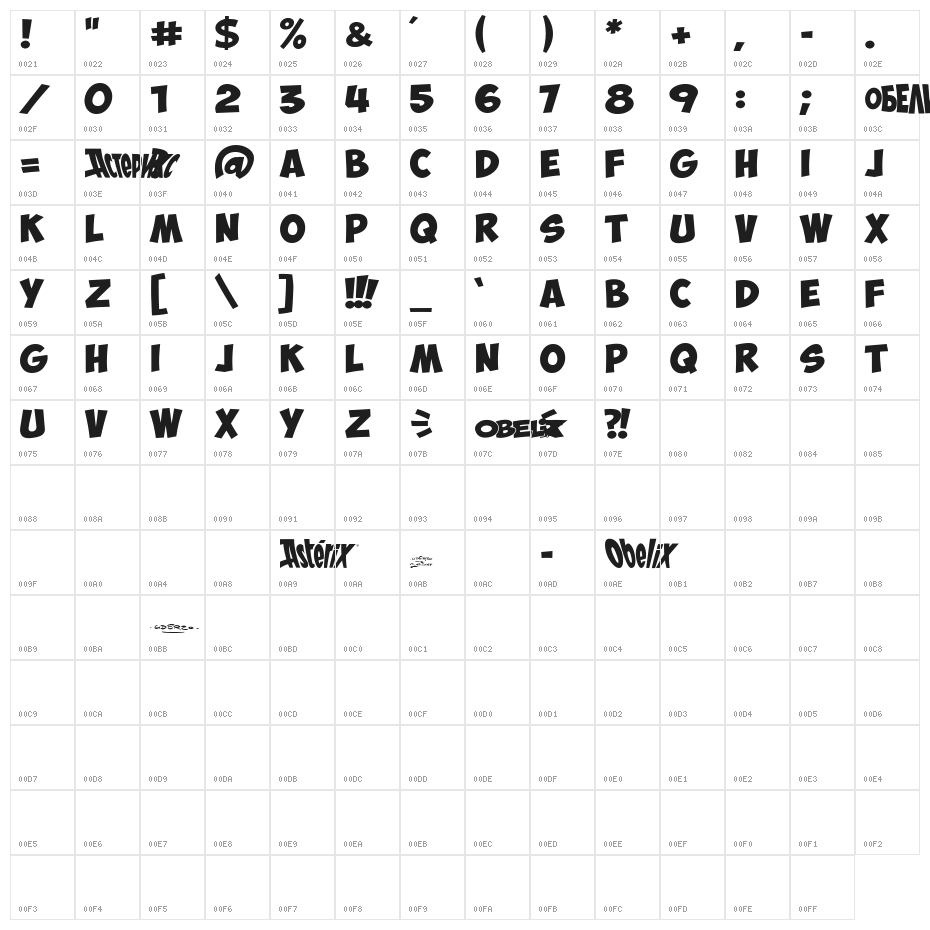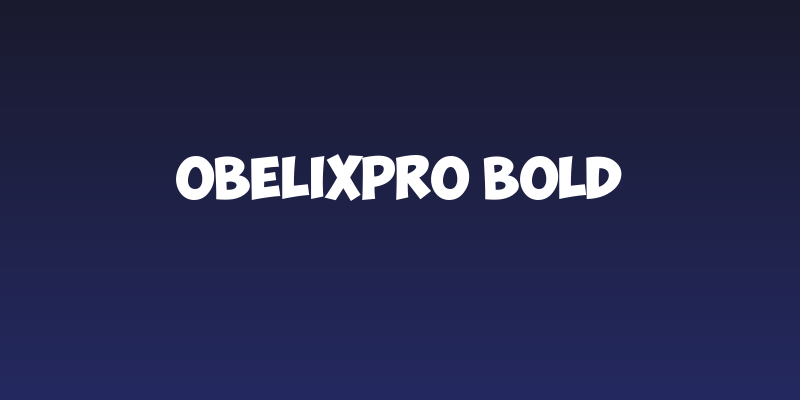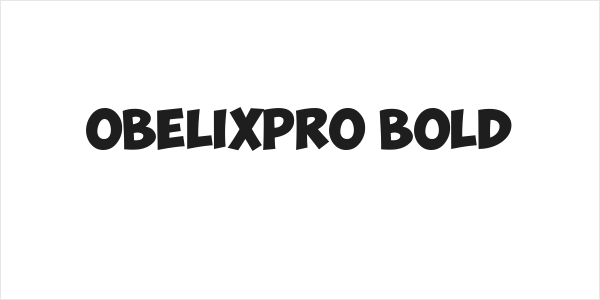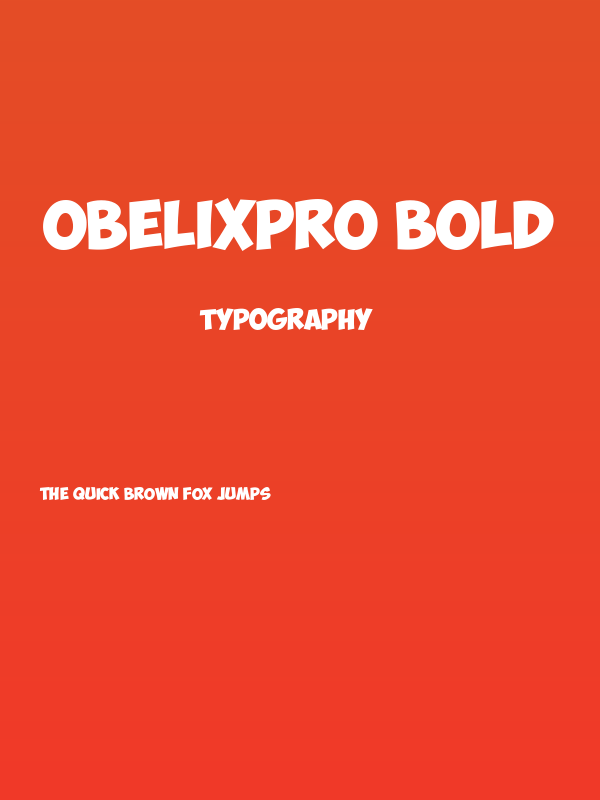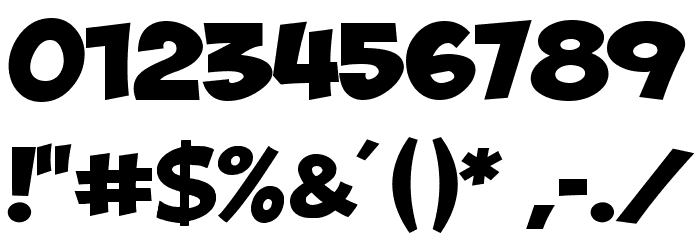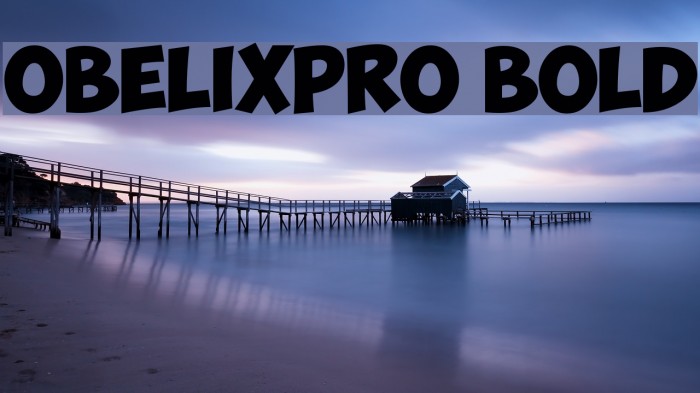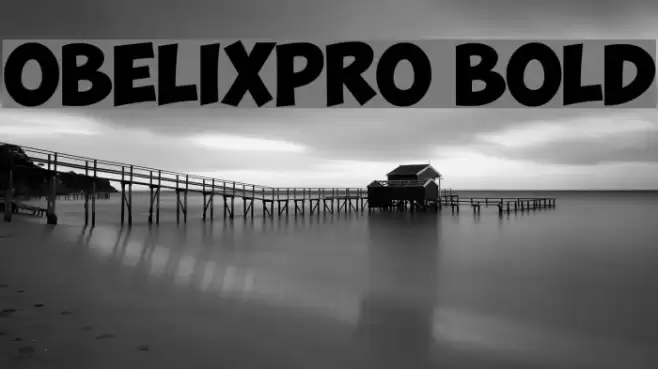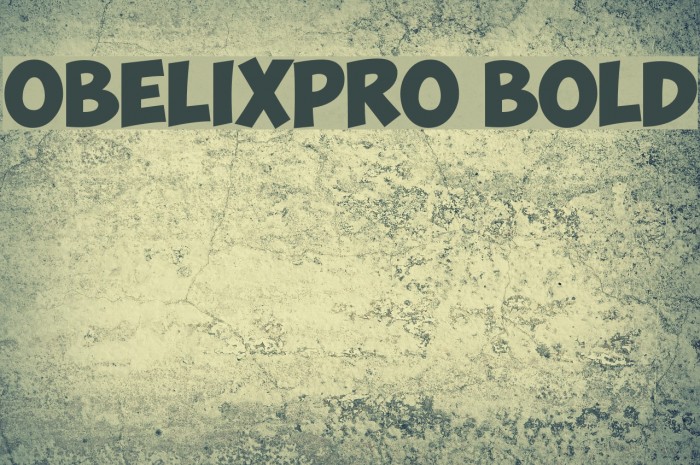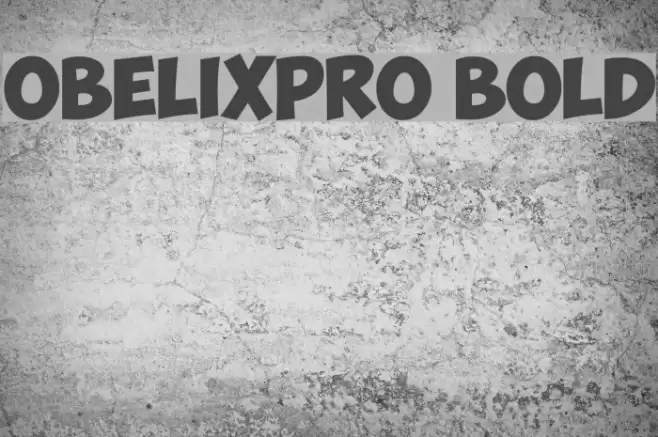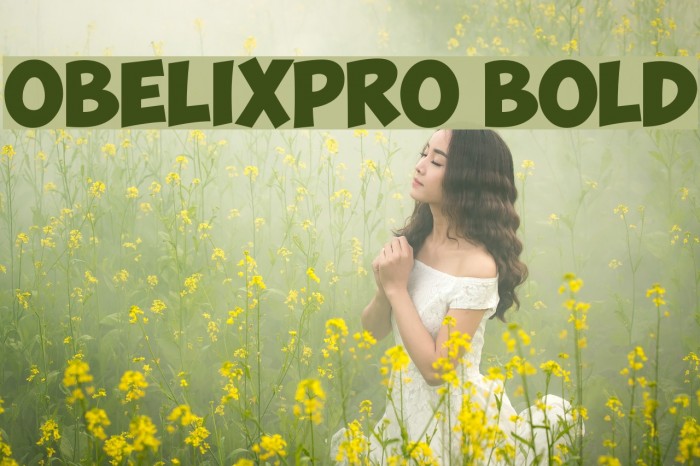
ObelixPro Bold Font
ObelixPro Bold Description
This font features a bold and playful design with exaggerated curves and thick strokes, creating a lively and dynamic appearance. The characters are slightly slanted, adding a sense of movement and energy. The uppercase and lowercase letters maintain a consistent style, with rounded edges and a slightly condensed form. The numbers and special characters follow the same bold and whimsical aesthetic, making them stand out. This font is ideal for projects that require a fun and engaging look, such as children's books, comic strips, or playful branding.
| Width | Condensed |
| Overall Style | Playful, Dynamic |
| Proposed Projects | Ideal for children's books, comic strips, playful branding, and eye-catching headlines. |